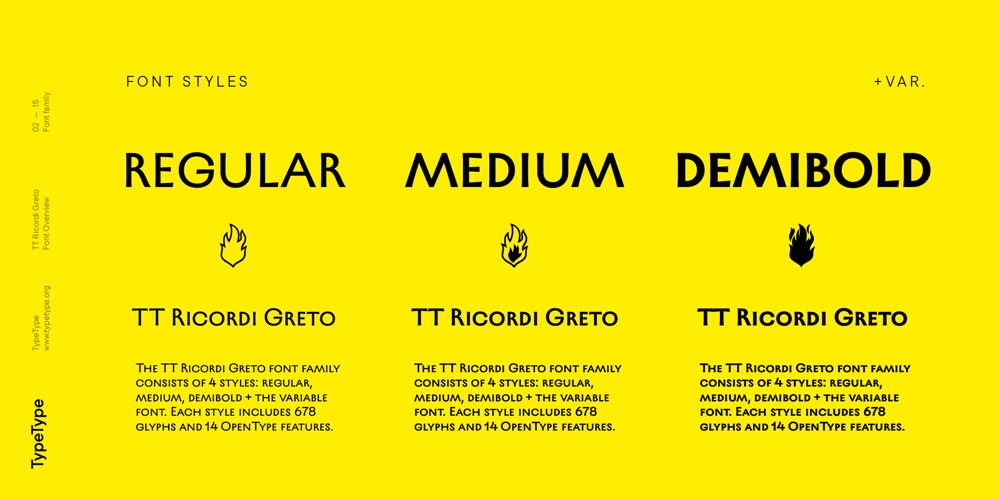
TT Ricordi Greto Font Family was designed by Kseniya Karataeva, TypeType Team and published by TypeType. TT Ricordi Greto contains 4 styles and family package options. TT Ricordi Greto useful links:Specimen | Graphic presentation | Customization optionsTT Ricordi Greto is the 5th project from the TT Ricordi collection of fonts, the main task of which is to find gems in old tablets and on stones and bring these inscriptions back to life in the form of contemporary fonts under the general name TT Ricordi. TT Ricordi Greto is Kseniya Karataeva’s original experimental project, inspired by a floor plaque dating from 1423 found in the Basilica di Santa Croce, Florence. When working on the typeface, we wanted to do something new and modern, but at the same time find details or artifacts in the source that could be exaggerated to the maximum.TT Ricordi Greto is a non-contrasting Florentine sans-serif with dynamic proportions and a hint on what would be serifs. The main features of the typeface are the closed aperture, dynamic proportions, and the combination of historical forms with modern visual solutions, flowing terminals with curling dash ends and flared ends, and subtle serifs that hint at the historical material.Another feature of the typeface is a large set of graphic icons (characters and objects), margin markers (flowers, stars and drops) and thirteen catchwords. All icons and spacing have been carefully selected and rendered in order to best match the visual plasticity of the font and interact well with it.The TT Ricordi Greto font family consists of 4 styles: Regular, Medium, Demibold + the Variable font. Each style includes 678 glyphs and 14 OpenType features. In addition to wide language support (extended Latin and basic Cyrillic), each style has two sets of figures and currencies (proportional and tabular), a set of arrows alternative versions of the letter M (flared and straight versions) and the letter Ф (round and oval) and the same a set of icons, margin markers and catchwords. TT Ricordi Greto OpenType features list: aalt, ccmp, locl, numr, ordn, tnum, pnum, case, ss01, ss02, ss03, ss04, ss05, calt. TT Ricordi Greto language support: Acehnese, Afar, Albanian+, Aleut (lat), Alsatian, Aragonese, Arumanian+, Asu, Aymara, Azerbaijani +, Banjar, Basque +, Belarusian (lat), Bemba, Bena, Betawi, Bislama+, Boholano+, Bosnian (lat), Breton +, Catalan+, Cebuano+, Chamorro+, Chichewa, Chiga, Colognian+, Cornish, Corsican +, Cree, Croatian, Czech+, Danish, Dutch+, Embu, English+, Esperanto, Estonian+, Faroese+, Fijian, Filipino+, Finnish, French, Frisian, Friulian+, Gaelic, Gagauz (lat), Galician+, Ganda, German+, Gikuyu, Guarani, Gusii, Haitian Creole, Hawaiian, Hiri Motu, Hungarian+, Icelandic+, Ilocano, Indonesian+, Innu-aimun, Interlingua, Irish, Italian+, Javanese, Jola-Fonyi, Judaeo-Spanish, Kabuverdianu, Kalenjin, Kamba, Karachay-Balkar (lat), Karaim (lat), Karakalpak (lat), Karelian, Kashubian, Kazakh (lat), Khasi, Kikuyu, Kinyarwanda, Kirundi, Kongo, Kurdish (lat), Ladin, Latvian, Leonese, Lithuanian+, Livvi-Karelian, Luba-Kasai, Ludic, Luganda+, Luo, Luxembourgish+, Luyia, Machame, Makhuwa-Meetto, Makonde, Malagasy, Malay+, Maltese, Manx, Maori, Marshallese, Mauritian Creole, Meru, Minangkabau+, Moldavian (lat), Montenegrin (lat), Morisyen, Nahuatl, Nauruan, Ndebele, Nias, Norwegian, Nyankole, Occitan, Oromo, Palauan, Polish+, Portuguese+, Quechua+, Rheto-Romance, Rohingya, Romanian +, Romansh+, Rombo, Rundi, Rwa, Salar, Samburu, Samoan, Sango, Sangu, Sasak, Scots, Sena, Serbian (lat)+, Seychellois Creole, Shambala, Shona, Silesian, Slovak+, Slovenian+, Soga, Somali, Sorbian, Sotho+, Spanish+, Sundanese, Swahili, Swazi, Swedish+, Swiss, German +, Tagalog+, Tahitian, Taita, Talysh (lat), Tatar+, Teso, Tetum, Tok Pisin, Tongan+, Tsakhur (Azerbaijan), Tsonga, Tswana +, Turkish+, Turkmen (lat), Uyghur, Valencian+, Vastese, Vepsian, Volapük, Võro, Vunjo, Walloon, Walser+, Welsh+, Wolof, Xhosa, Zaza, Zulu+, Belarusian (cyr), Bosnian (cyr), Bulgarian (cyr), Erzya, Karachay-Balkar (cyr), Khvarshi, Kumyk, Macedonian+, Montenegrin (cyr), Mordvin-moksha, Nogai, Russian+, Rusyn, Serbian (cyr)+, Ukrainian.